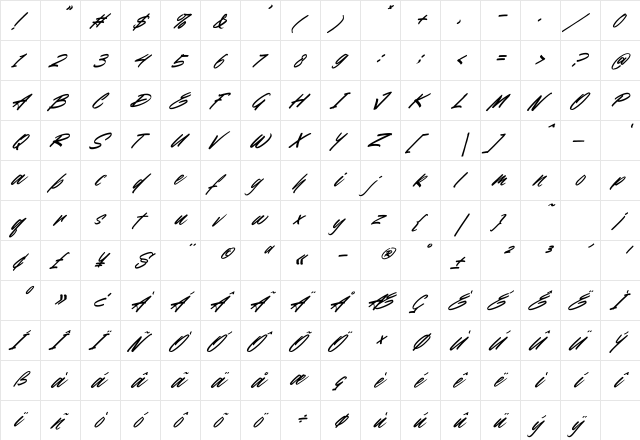
Obsurd Italic Regular Font Preview
Obsurd Italic Regular
Obsurd Italic Regular Font Details
Design Context for Obsurd Italic Typeface
Obsurd Italic is a composed and adaptable typeface that performs quietly and consistently across a wide range of design contexts. The slanted form adds forward momentum and visual energy.
Pro Tip: Try Obsurd Italic for annotation and caption copy alongside an upright companion — the contrast in angle creates a dynamic but ordered typographic system.